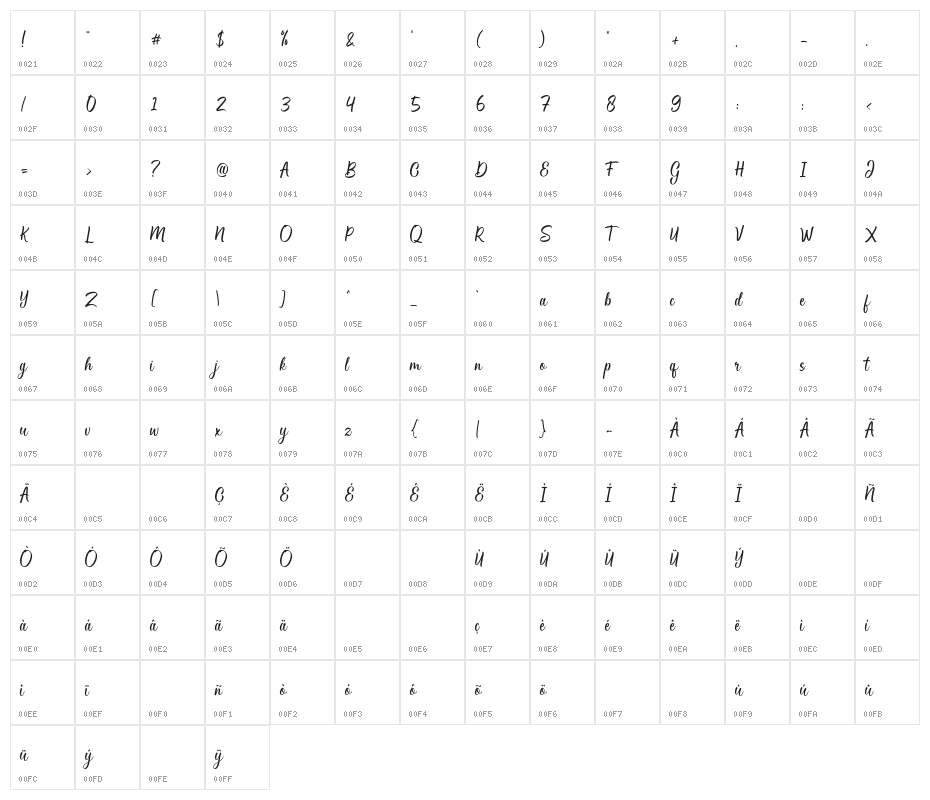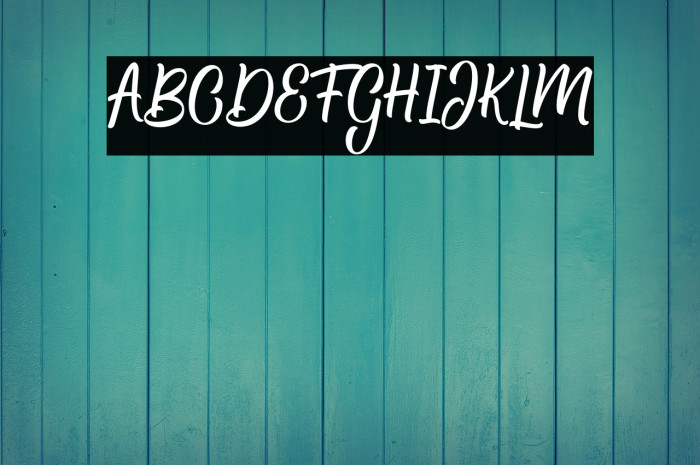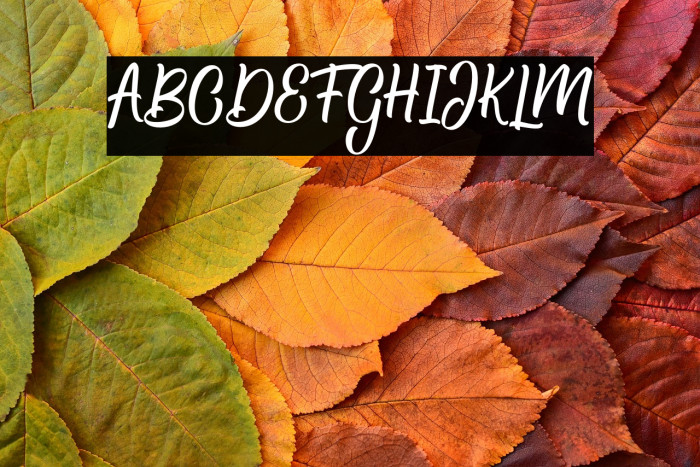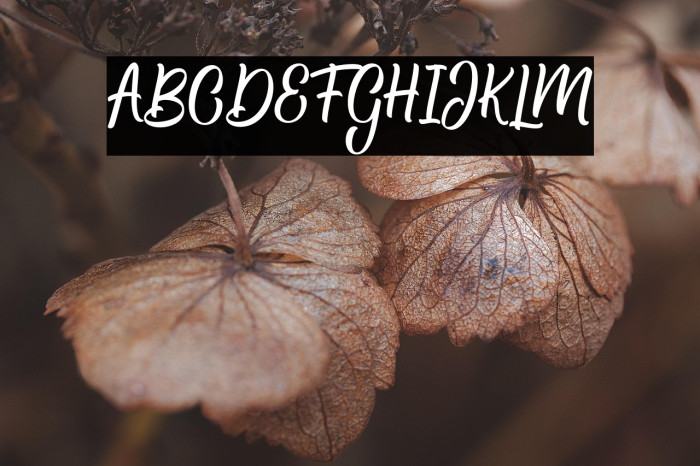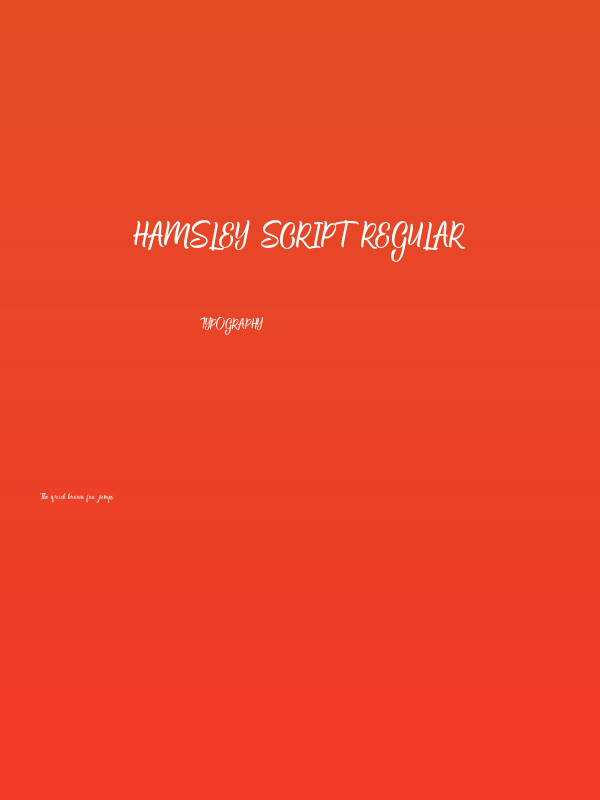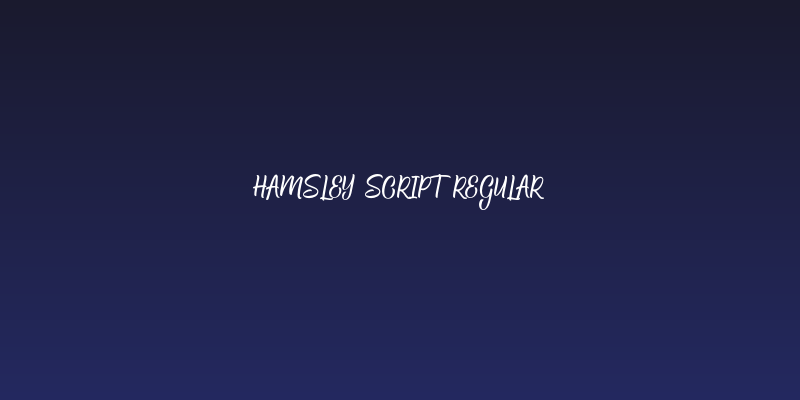
Hamsley Script Regular Font
Hamsley Script Regular Description
This elegant script font features a flowing, cursive style with smooth, rounded edges and a consistent stroke width. The uppercase letters are bold and dramatic, with sweeping curves and flourishes that add a touch of sophistication. The lowercase letters maintain a harmonious balance, offering a more subdued yet equally graceful appearance. The numerals are clear and easy to read, while the special characters integrate seamlessly with the overall design. This font exudes a sense of elegance and charm, making it ideal for projects that require a personal or artistic touch.